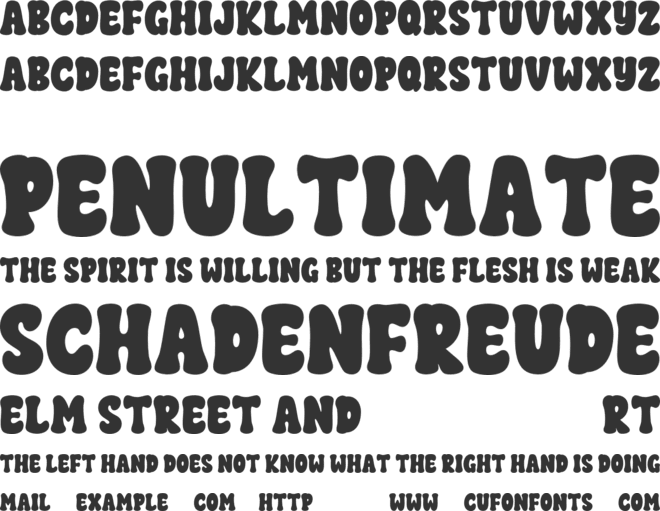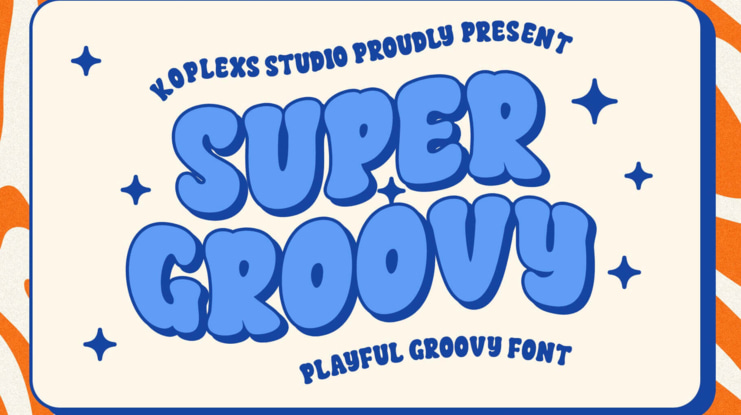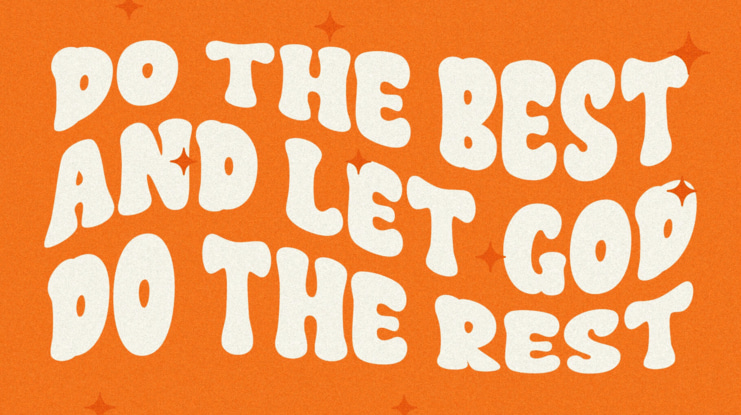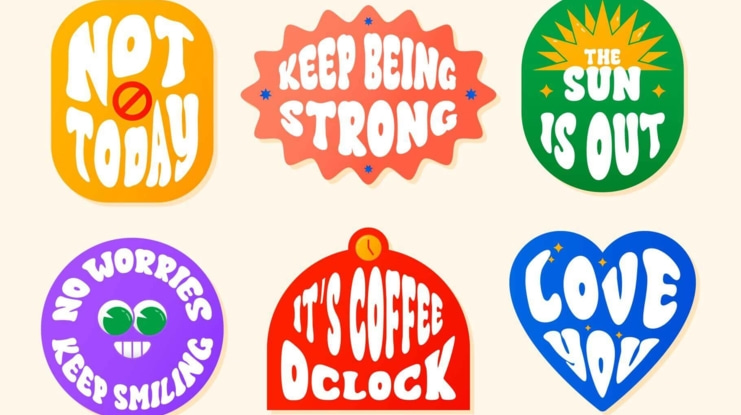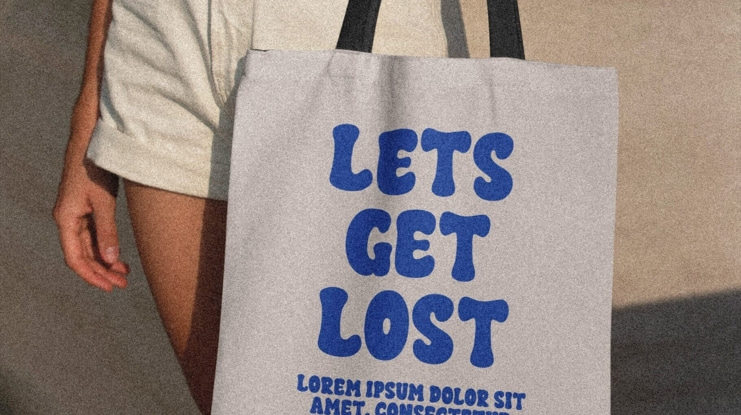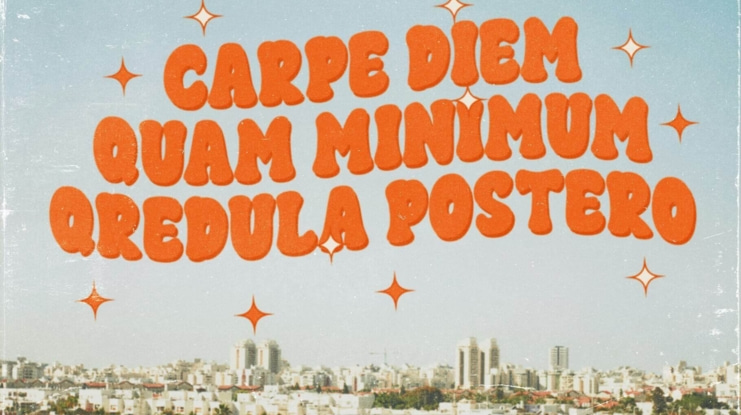
Super Groovy Font is a bold, playful Groovy Font inspired by the funky retro vibes of the 60s and 70s. With its soft bubble font shapes and thick curves, it’s perfect for creating fun and eye-catching designs. This retro font doubles as a stylish display font that brings both nostalgia and modern energy to your projects. Ideal for designers looking to stand out with a fancy font that’s full of personality.
Use Super Groovy Font as a branding font, poster font, or logo font for creative brands, merchandise, and social media. Its cheerful and cute font style also makes it perfect for apparel, mugs, and tote bags. Whether you’re crafting modern fonts for your portfolio or designing playful shirts, this shirt font will bring joy and bold character to your work.